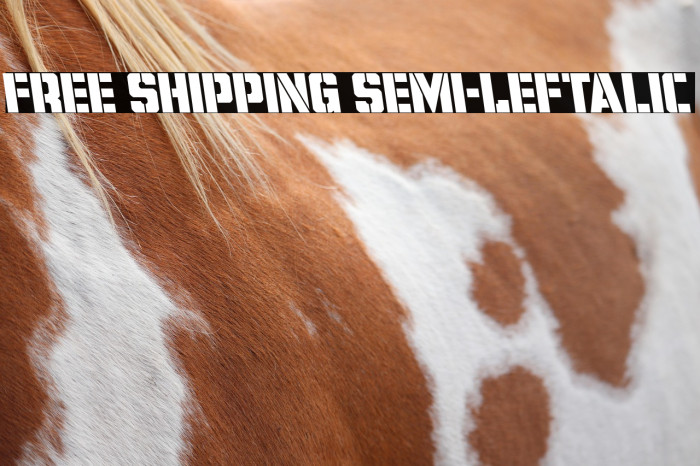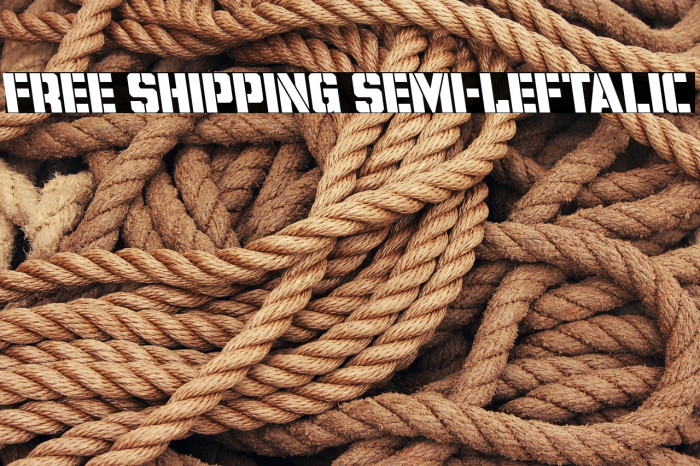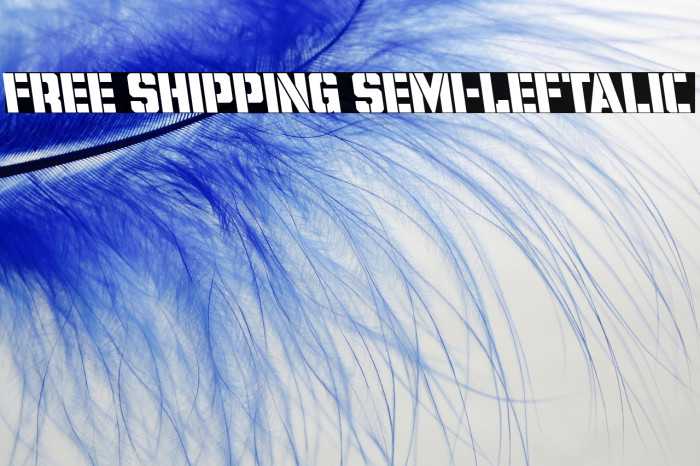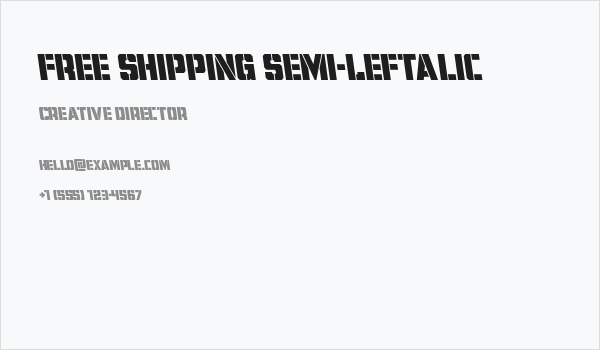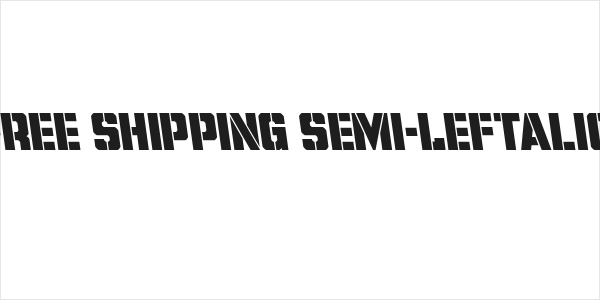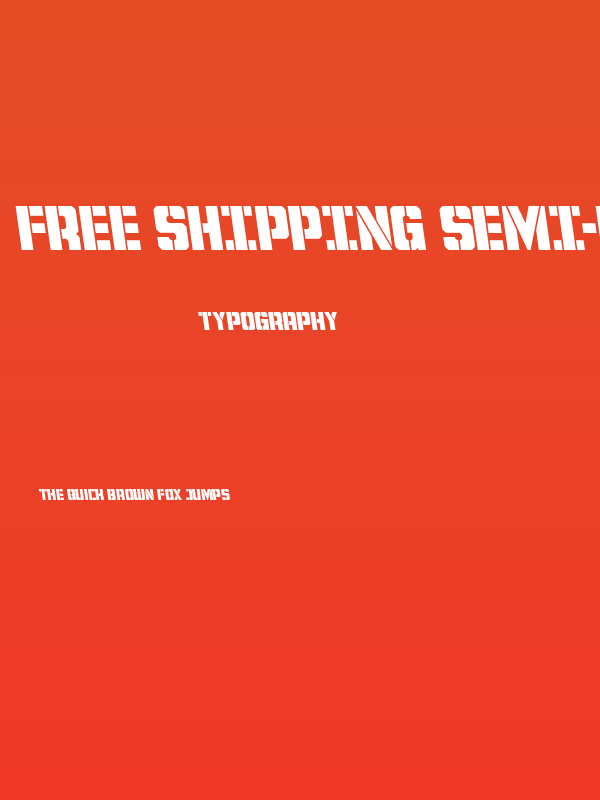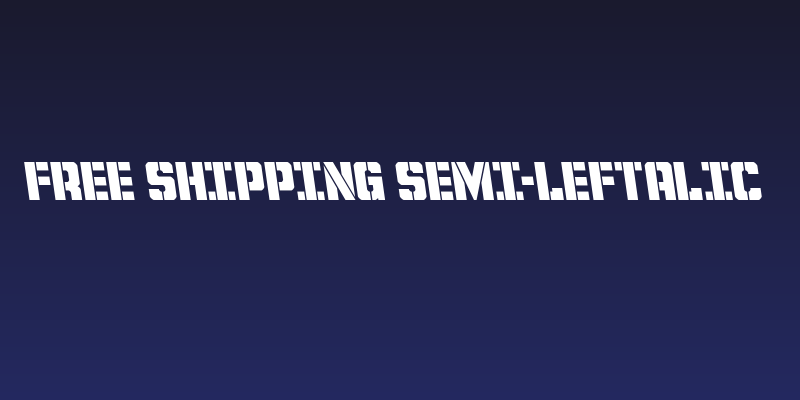
Free Shipping Semi-Leftalic Font
Free Shipping Semi-Leftalic Description
This font features a bold, geometric design with a distinct stencil-like appearance. The characters are constructed with thick, blocky strokes, creating a strong and impactful visual presence. The angular cuts and sharp edges give it a modern and industrial feel, while the consistent weight across all characters ensures a uniform look. The font is highly legible, even at smaller sizes, making it suitable for various design applications. Its unique style is ideal for projects that require a bold statement, such as posters, headlines, and branding materials.
| Proposed Projects | Ideal for posters, headlines, branding, and any design needing a bold, impactful statement. |